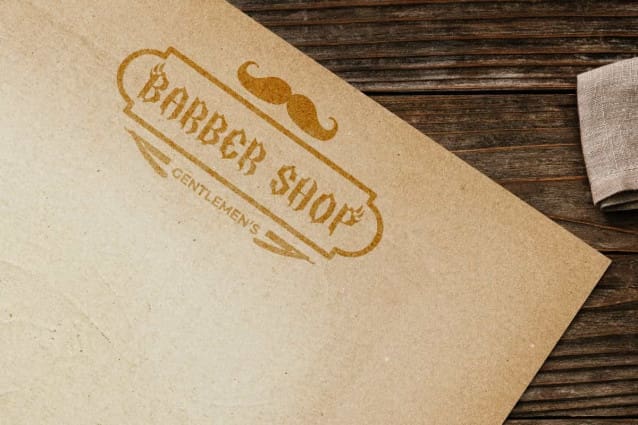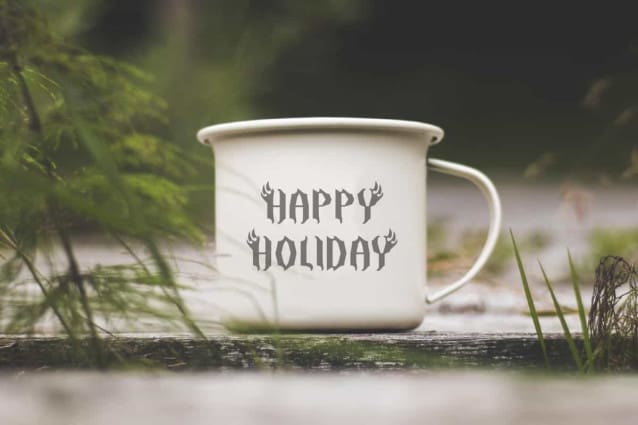
Hawkgirl Font
Hawkgirl Font is a bold blackletter display font with masculine horror and fight theme. This font has sharp angles so it can give an intimidating and bold impression. It will be perfect for any designs, such as brand image, custom design, invitation, label, marketing material, menu, poster, printing, product packaging, quotes, signage, website, and many more!
Hawkgirl Font includes full set of ALL CAPS for Uppercase and Lowercase Basic Characters, Numerals, Punctuation, and Symbol. This font have Alternate character that will give amazing touch and also a perfect choice for many industries, such as accessories, advertising, barber shop, café, fashion, game, movie, music, printing, publishing, etc.